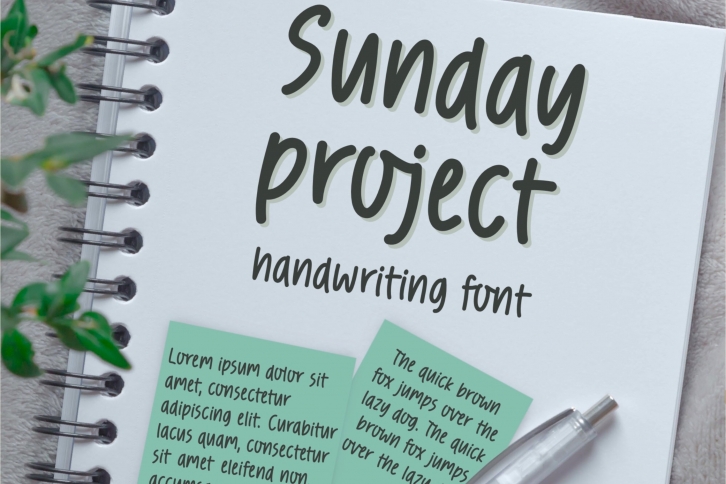
Sunday Project natural handwriting is a great font that was designed by Jyllyco. Imagine the amount of combinations you can create using this font! The archive is 17.34 MB and it was released on March 18, 2022. Sunday Project natural handwriting looks beautiful on wedding invitations, greeting cards, logos, posters, labels, t-shirt designs, logos, business cards and is perfect for use in ink or watercolor works, fashion, magazines, packaging and food menus, children's books and more!